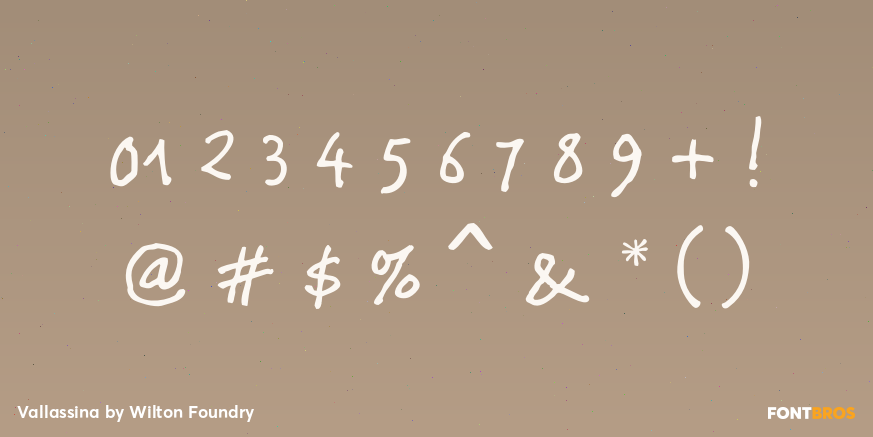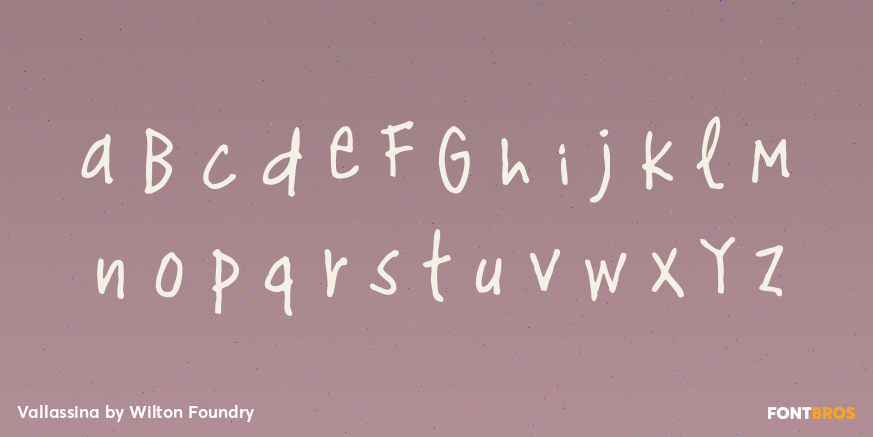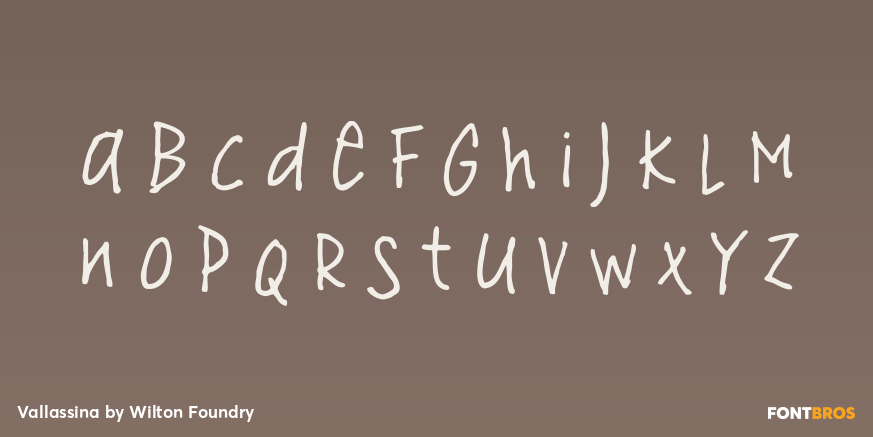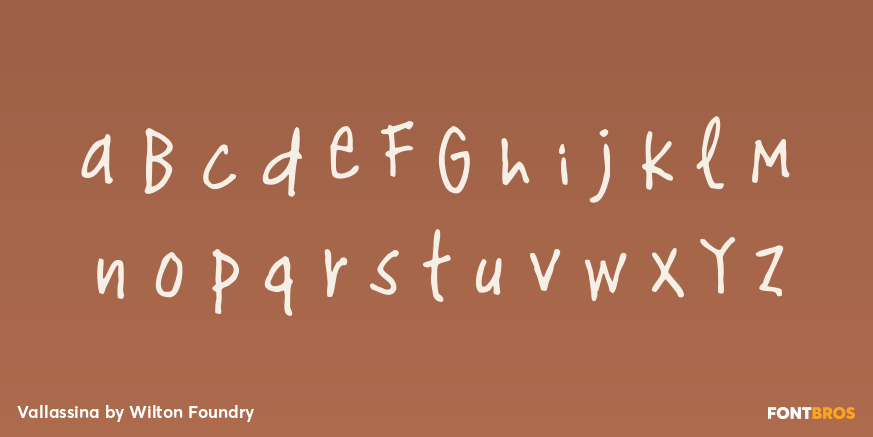
Vallassina
Font Family by Wilton Foundry
Vallassina is named after Vallassina, a village in the valley of the upper tract of the river Lambro in northern Italy. Vallasina is confidently irreverent yet curiously attractive. How many ways can you use Vallassina to whistle to your neighbors?